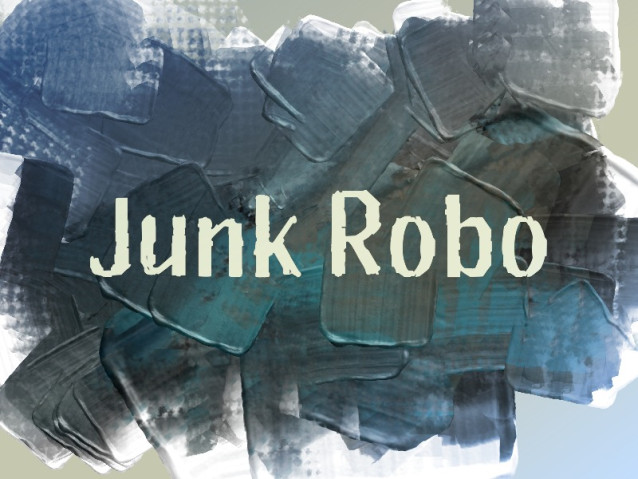
Junk Robo Font
Junk Robo Font is a simple and modern display font suitable for quotes, logos, headings, titles, and many more. Use it on any of your creative projects, and your designs will become outstanding!